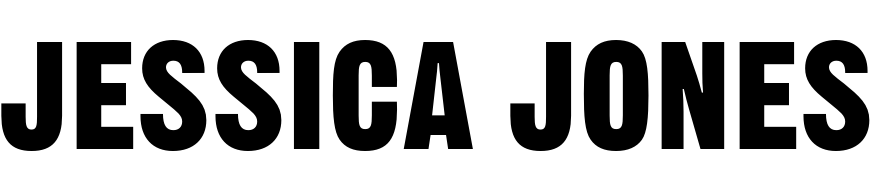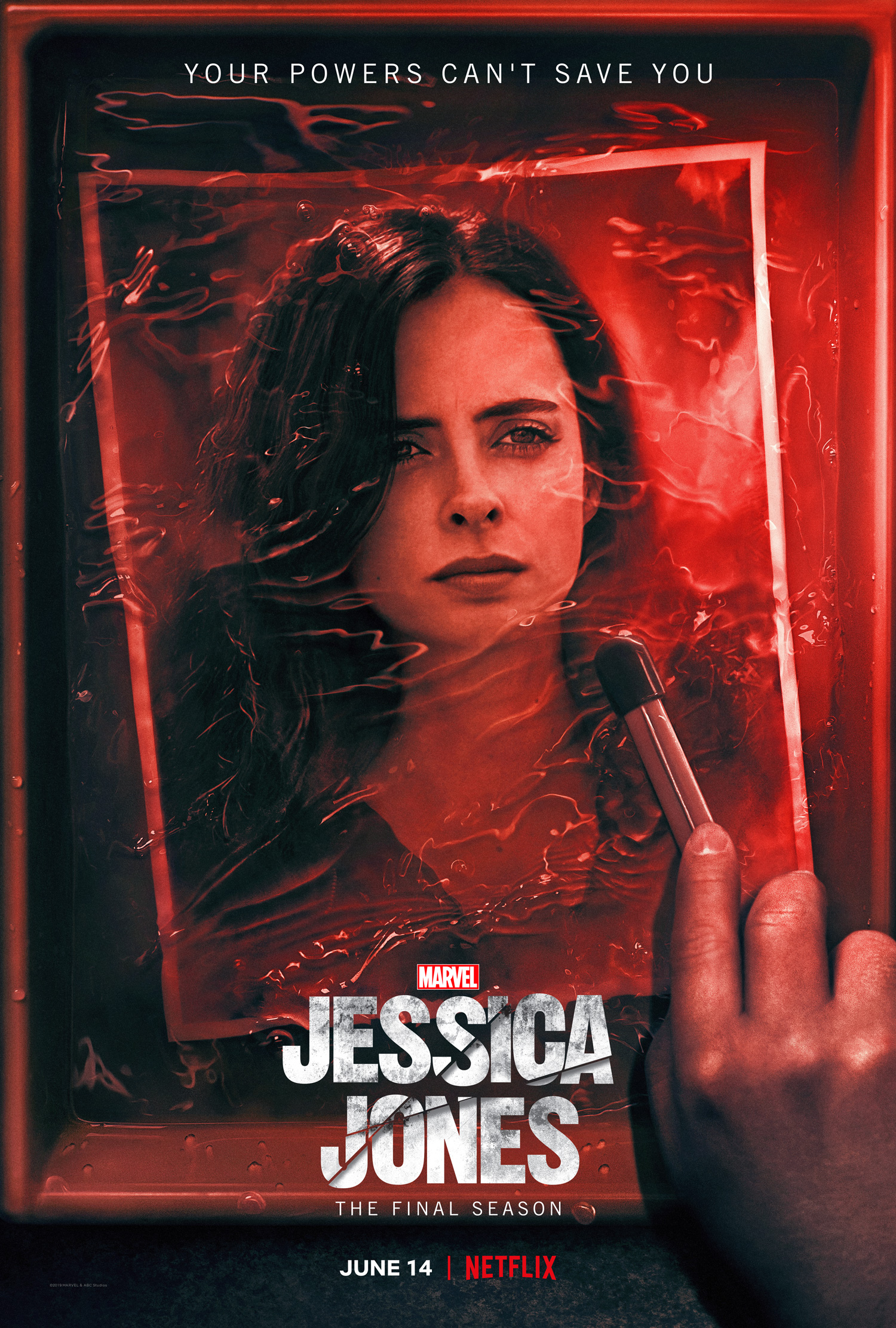
Marvel's Jessica Jones Font
The title of the TV series features a font similar to Gothic 13, a bold condensed sans serif font by Linotype. You can view and buy it here.